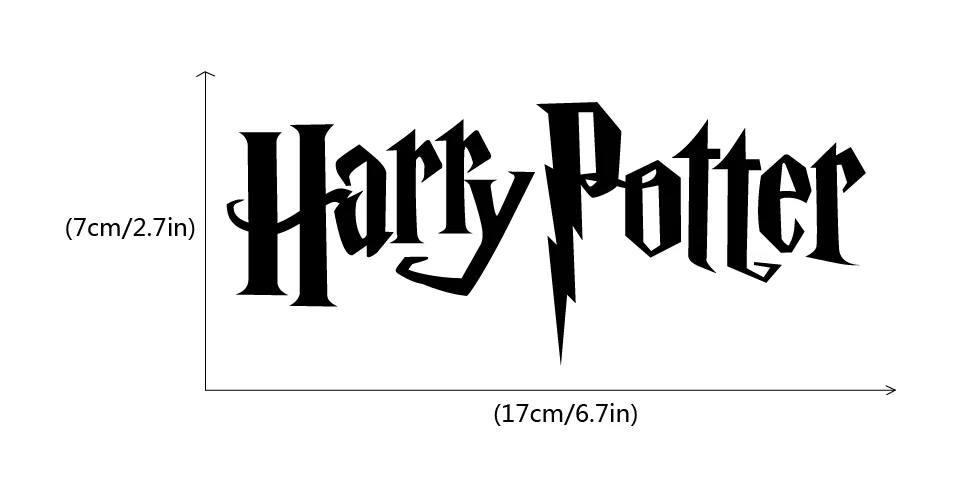
Harry Potter Font Style
There is a site that compiles listings of the type fonts used in the first six Harry Potter books Book 6, for instance, besides using Adobe Garamond for the text and Able for chapter titles and page numbers, employs Shipwreak Bold, Frankfurter Inline, Flemish Script, Brimley, Dollhouse, and P22 Da Vinci Forward.
To Mr Harry Potter, The Cupboard under the Stairs 4 Privet Drive, Little Whinging Surrey Dear Mr Potter, We are pleased to inform you that you have been accepted at Hogwarts School of Witchcraft and Wizardry Students shall be required to report to the Chamber of Reception upon arrival, the dates for which shall be duly advised. WeightMedium (normal) Width typeNormal Mac styleBold DirectionOnly strongly left to right glyphs contains neutrals Pattern natureRegular PostureUpright Stroke weightBook, text, regular, etc PitchNot monospaced. Euphoria Script is a basic script font that differs from cursive thanks to the lack of interconnectedness between letters These templates— Cream with Pink Flowers Engagement Announcement and Pink House Photo Moving Announcement —are still elegant despite the relaxed feel Use this template Use this template.
Different fonts were used on the Harry Potter book covers, for its chapter title and elsewhere The lettering used for the book title is very similar to a typeface called Hocus Pocus, which comes in four styles and each with a complete character set As for the chapter titles and page numbers, a font called Able by Marcus Burlile resembles their lettering. Unfortunately, the only fonts you can use are the fonts that Google provides If you click on the Font dropdown, you have the option to "Add Fonts" at the bottom of the list You might be able to find a font that resembles your Harry Potter font. Free Harry Potter Font Downloads Enjoy all these free Harry Potter fonts!.
A font based on the Harry Potter title logo CLICK HERE TO DOWNLOAD!. Font Meme is a fonts & typography resource The "Fonts in Use" section features posts about fonts used in logos, films, TV shows, video games, books and more;. The Harry Potter books are printed in Adobe Garamond The special fonts are a bit harder to find, as many of them are custom The classic Harry Potter cover font has a good dupe called Harry Potter Lumos is the chapter titles and the headers Aquiline two isn’t a bad Tom Riddle’s handwriting, and Daniel is ok for Harry Potter’s.
There is more than one font in the Harry Potter universe Since the first novel was published in 1997, different fonts have appeared on the covers of the various editions in English and other languages But one of them has beat all other fonts the one with the distinctive lightning bolt “P” Created with the text generator of fontmemecom. Harry Potter Style Monogram Font Set in 1″ 2″ & 3″ sizes Each size includes letters upper and lowercase, numerals and bonus punctuation Made with Fill Stitch Over 0 files total Formats Available PES, XXX, VIP, VP3, HUS, JEF, SEW, EXP, PCS, DST, BX. Collection of fonts for Harry potter Personal Use Free 171 downloads.
Choose your Hogwarts house cursor or pick your favorite Harry Potter character with their wands to play around and cast some spells!. Harry Potter Font File Format TrueType Font (ttf) Copyright Jenny Barck 01 Style Regular. 14 Free Harry Potter Fonts – TTF, OTF Harry Potter fonts are the fonts used in the novel series Harry Potter, written by JK Rowling, a British author Different vintage fonts were used in these novels The book cover free font of Harry Potter resembles the typeface “Hocus Pocus”;.
1 Fonts, Photo Mockups and Graphics only $12!. A Charming Font Aquiline Two Booter Dumbledor Harry P HP Poster Lumos Magical Me Parseltongue HP Dingbats You might also like DIY Hogwarts Letter (Free Printable!) Harry Potter Scavenger Hunt Professor Trelawney's Prophecy Ball Ultimate Wizarding Treasure Box. These and more style fonts are used to make the text more reader worthy These fonts make the text more stylish Created by Anke art, this font reminds one of the Harry Potter series This font file is available online for free download and not for sharing This font is a hot favorite with those who swear by the Harry Potter series.